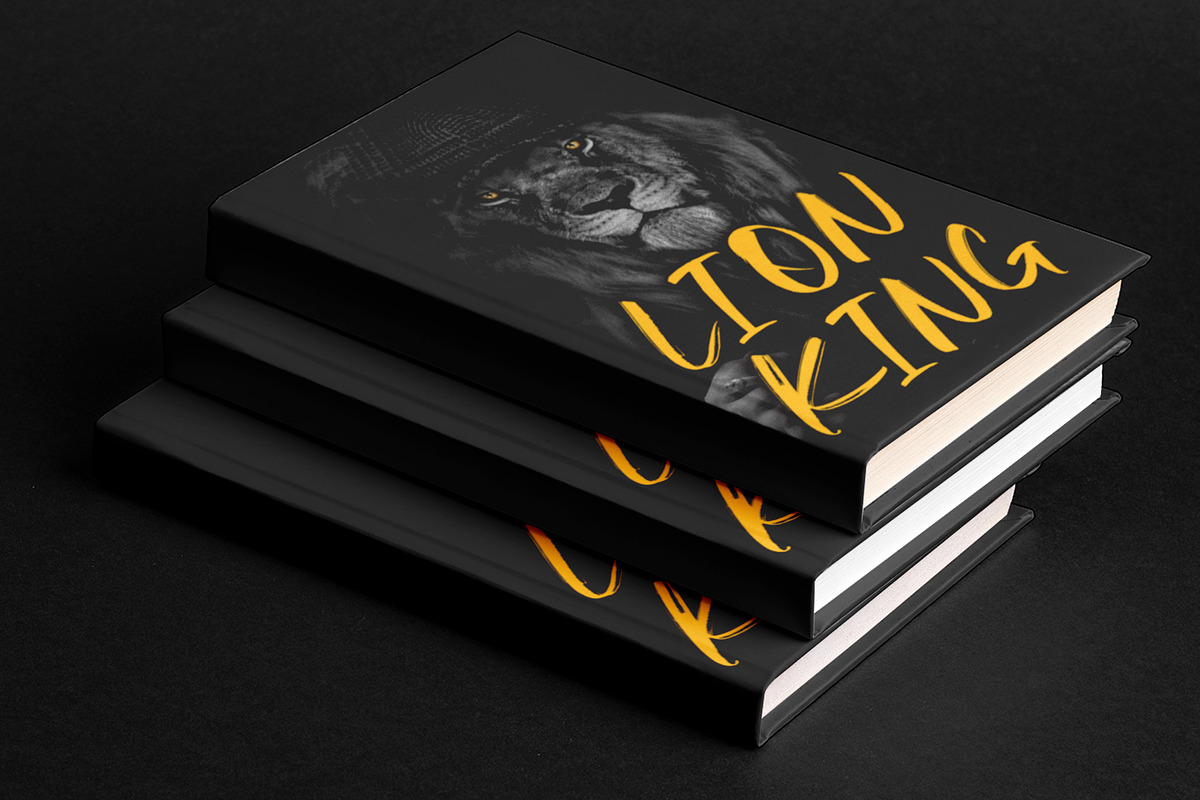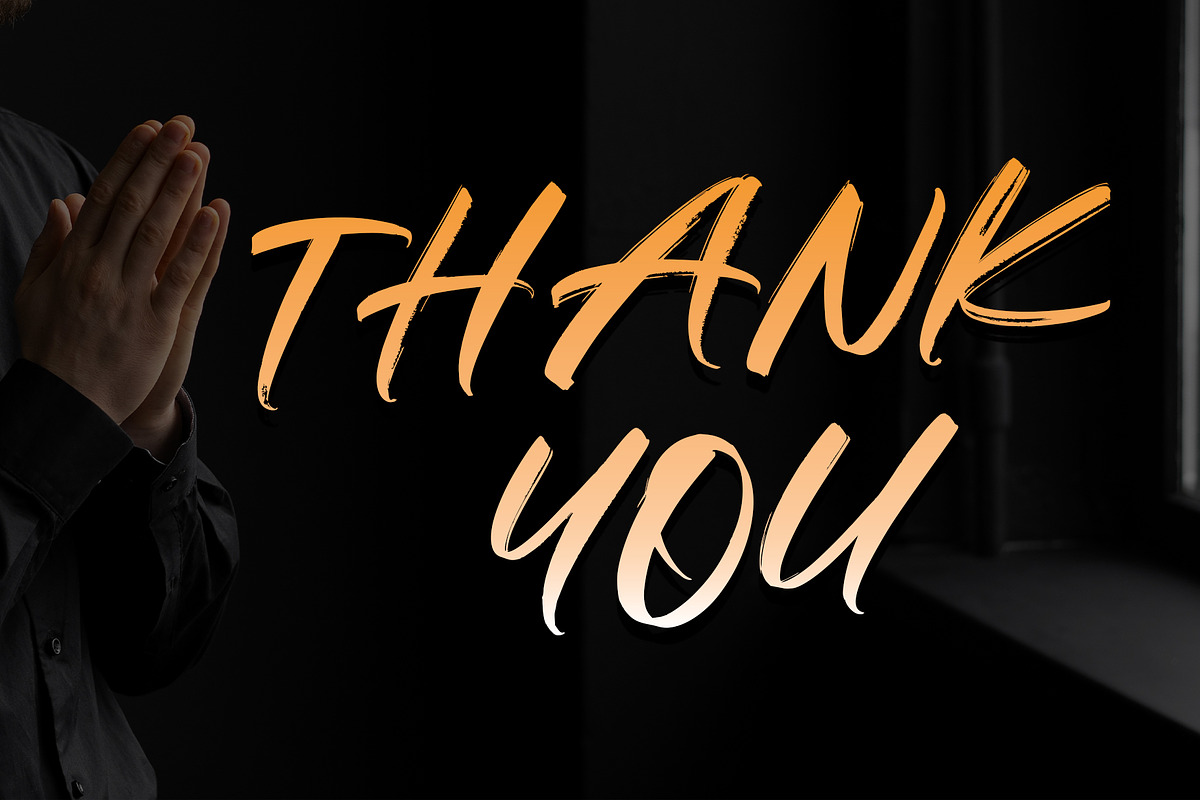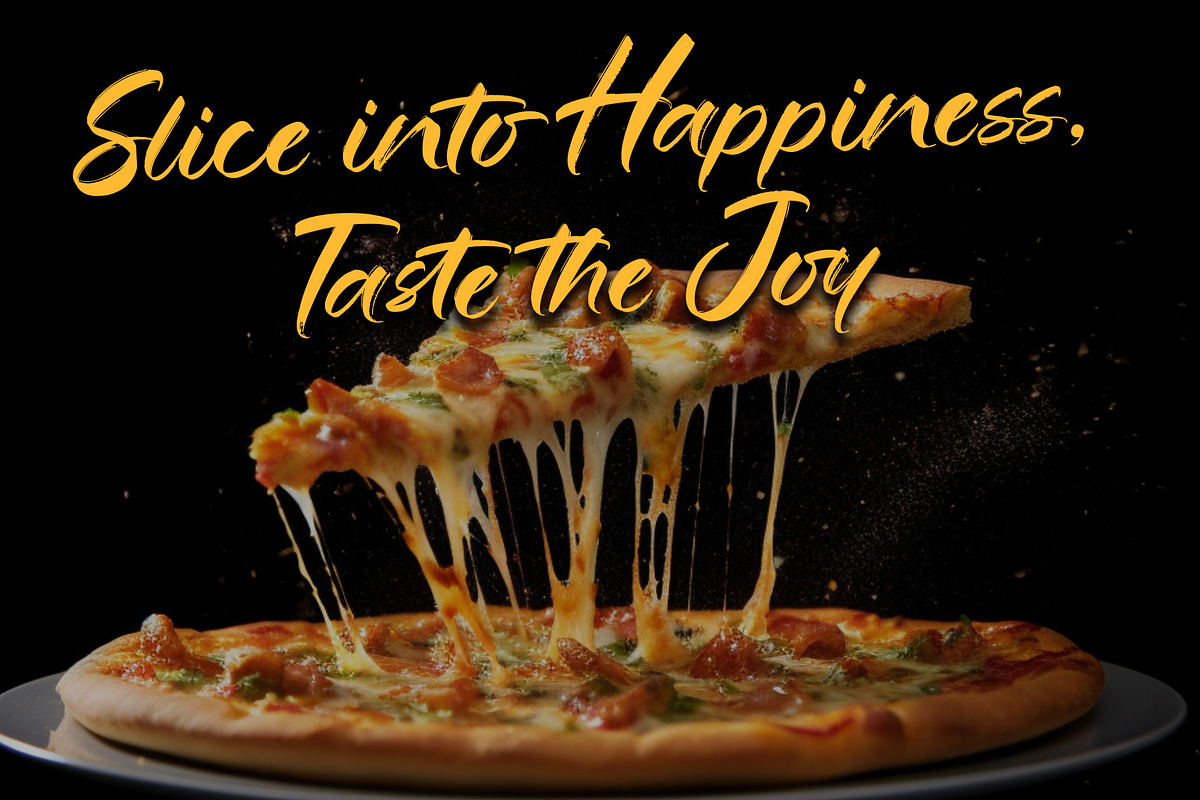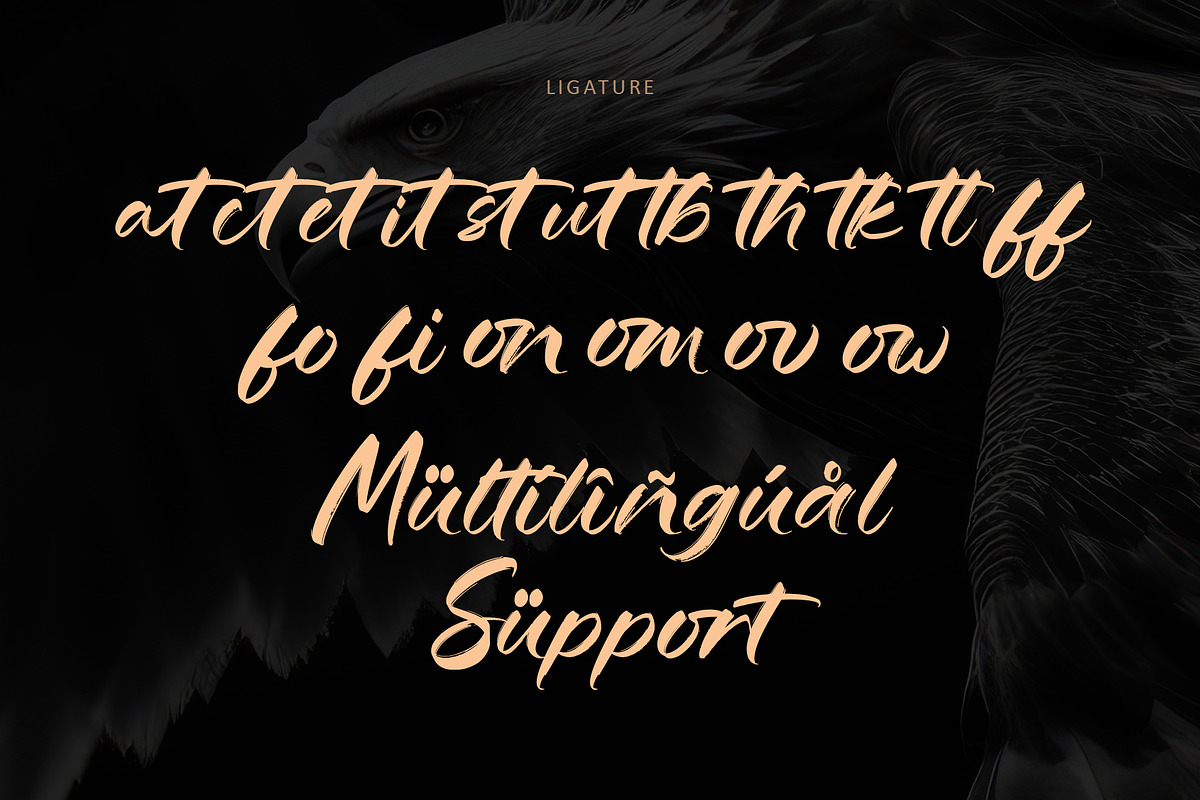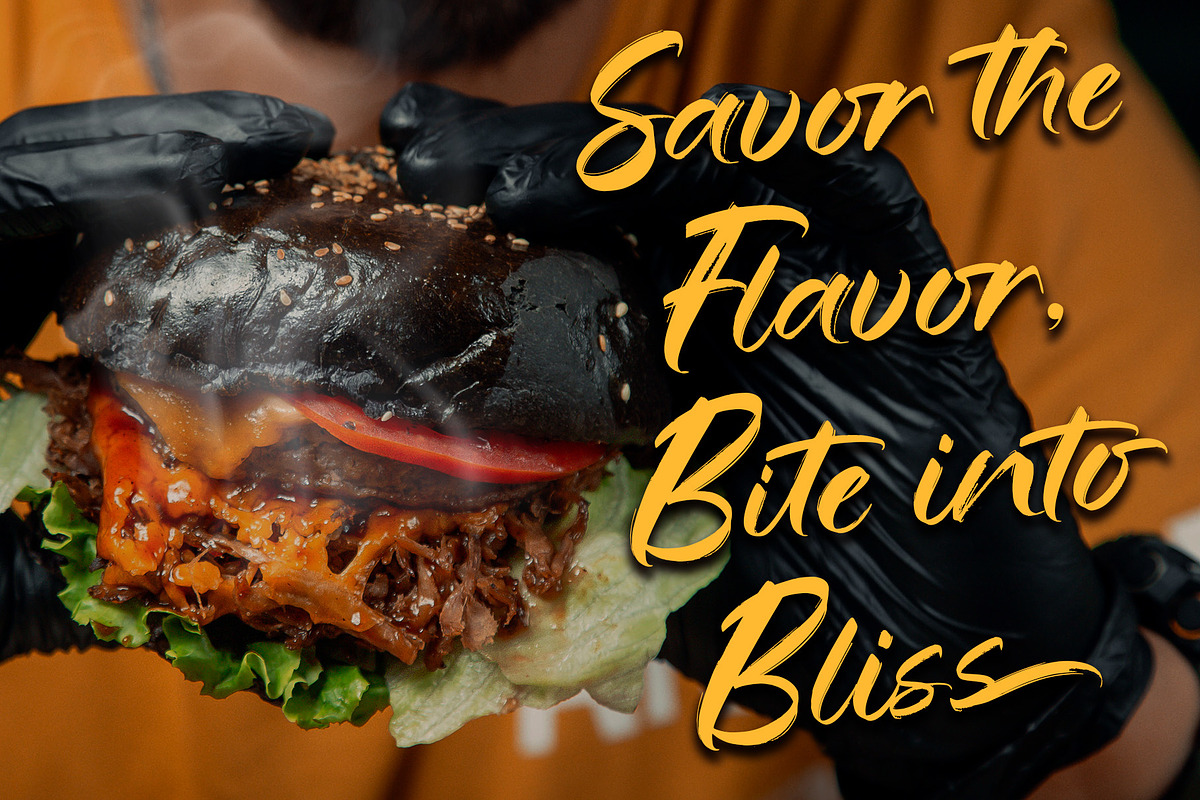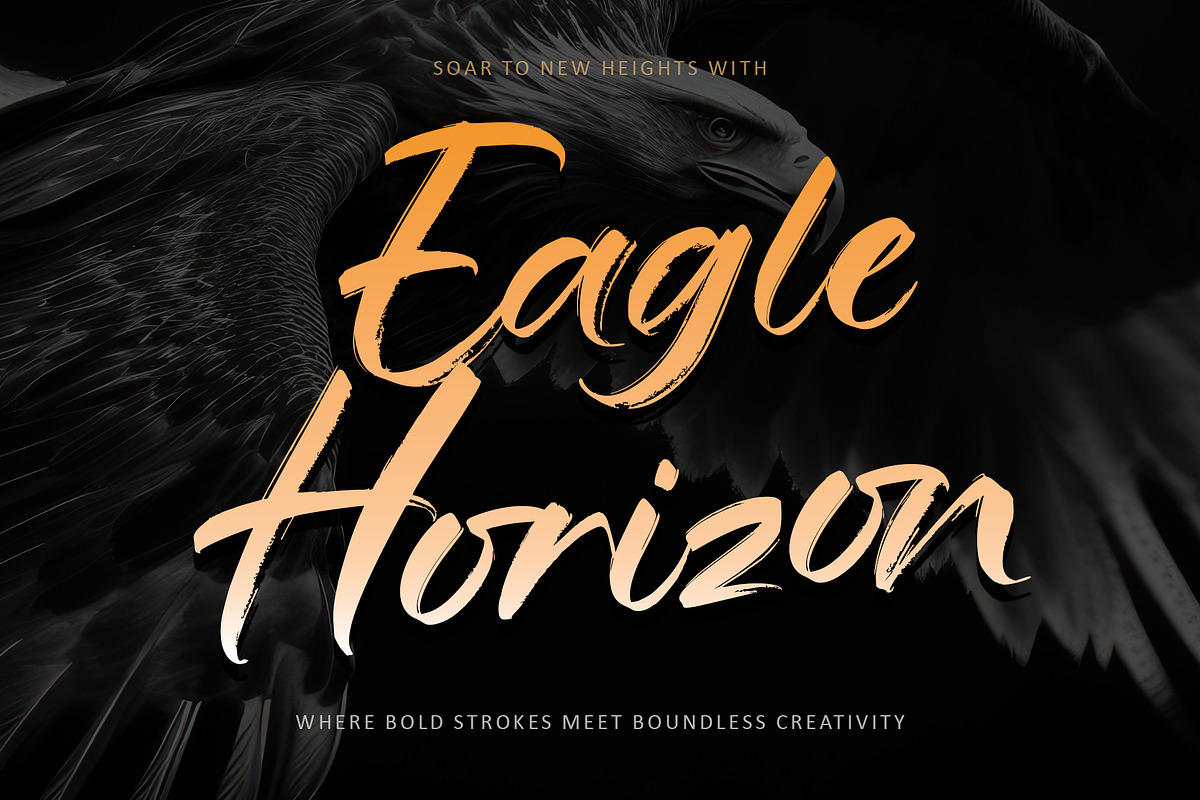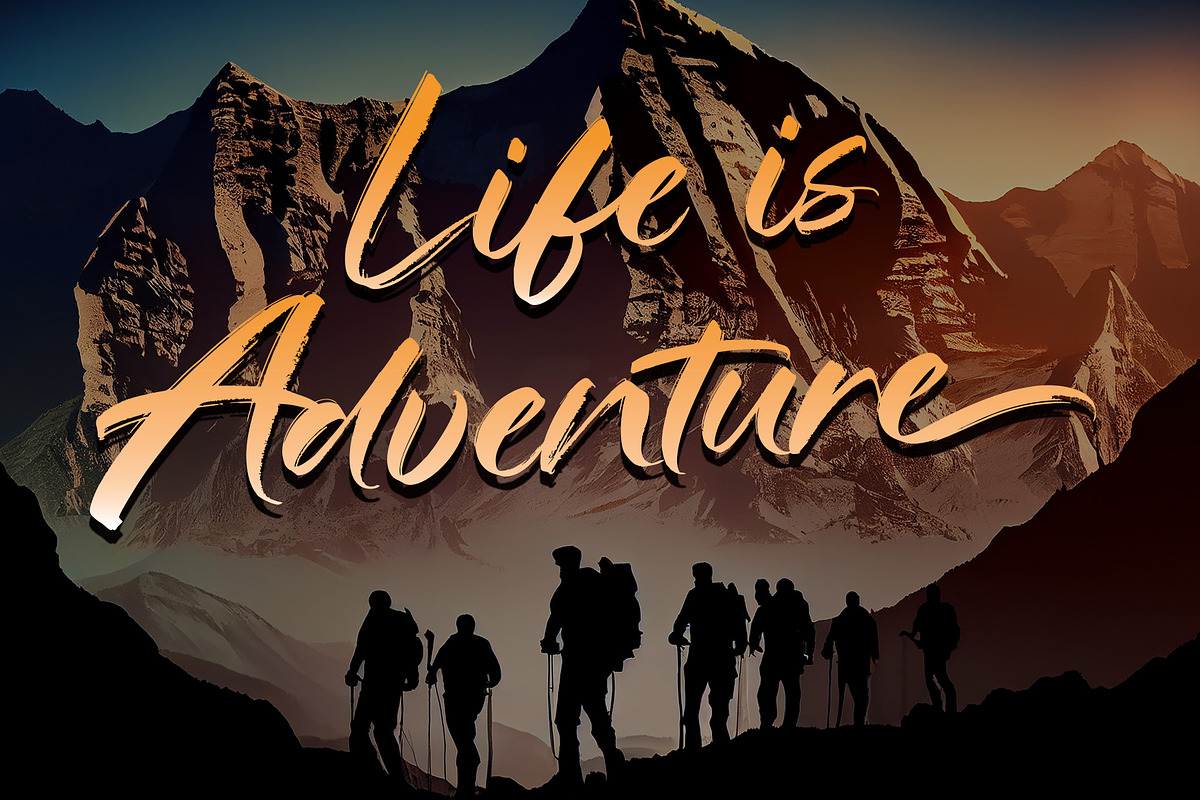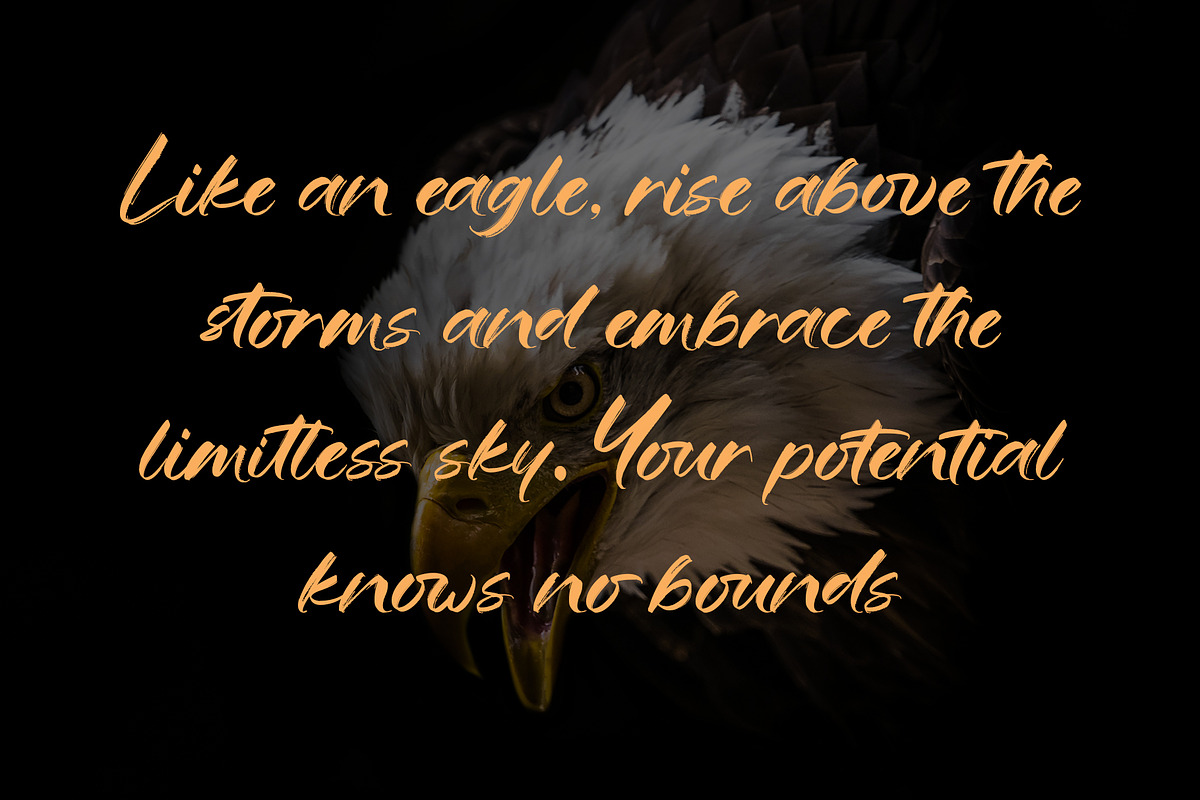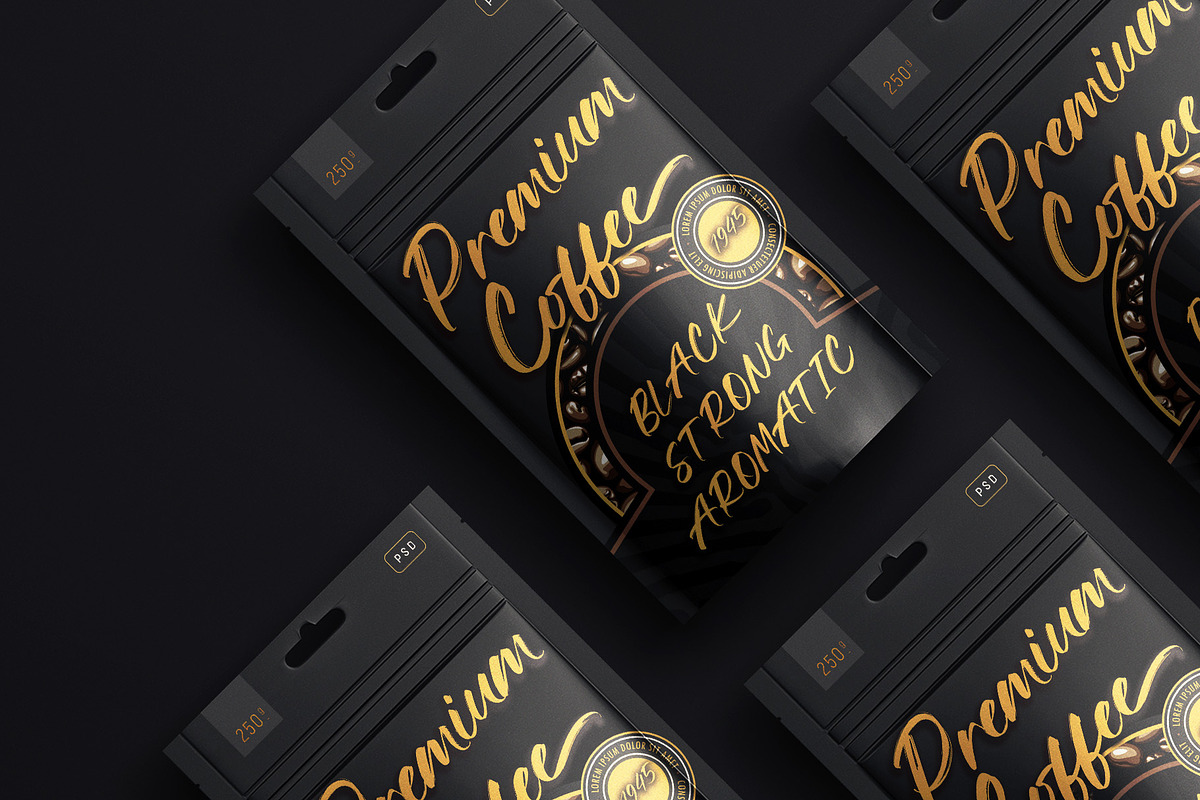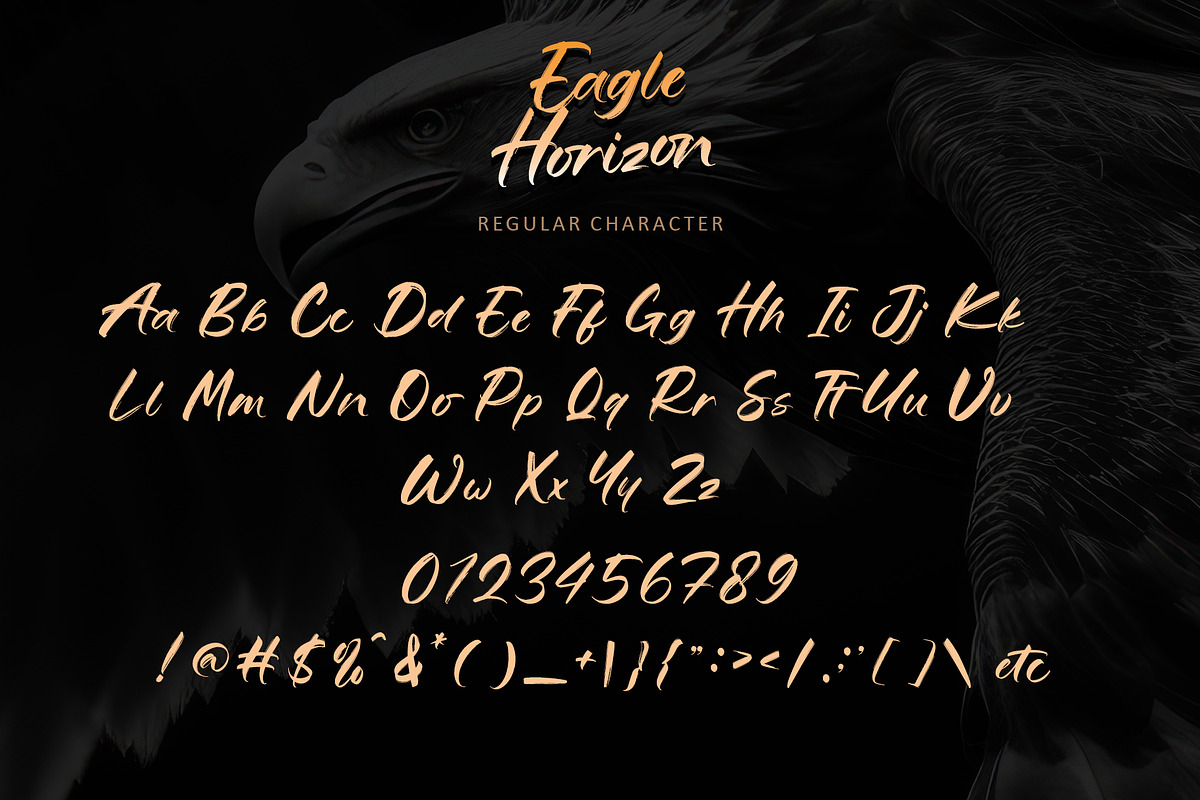
Eagle Horizon
Introducing Eagle Horizon, a bold brush font that soars with majestic strength and captivating elegance. Designed to infuse your projects with a dynamic yet refined energy, this font features powerful, sweeping strokes and an organic brush texture that adds a vibrant touch to any creative endeavor. Ideal for logos, posters, packaging, and more, Eagle Horizon commands attention and exudes confidence. Its vivid, flowing appearance ensures your work stands out with a distinctive and stylish impression. With PUA encoding, accessing the rich variety of expressive glyphs and swashes is effortless. Elevate your designs with Eagle Horizon, a font that seamlessly blends regal vigor and majestic allure.
- Support multilingual; ä ö ü Ä Ö Ü ß ¿ ¡
- lowercase and uppercase letters
- Ligature, alternate and titling